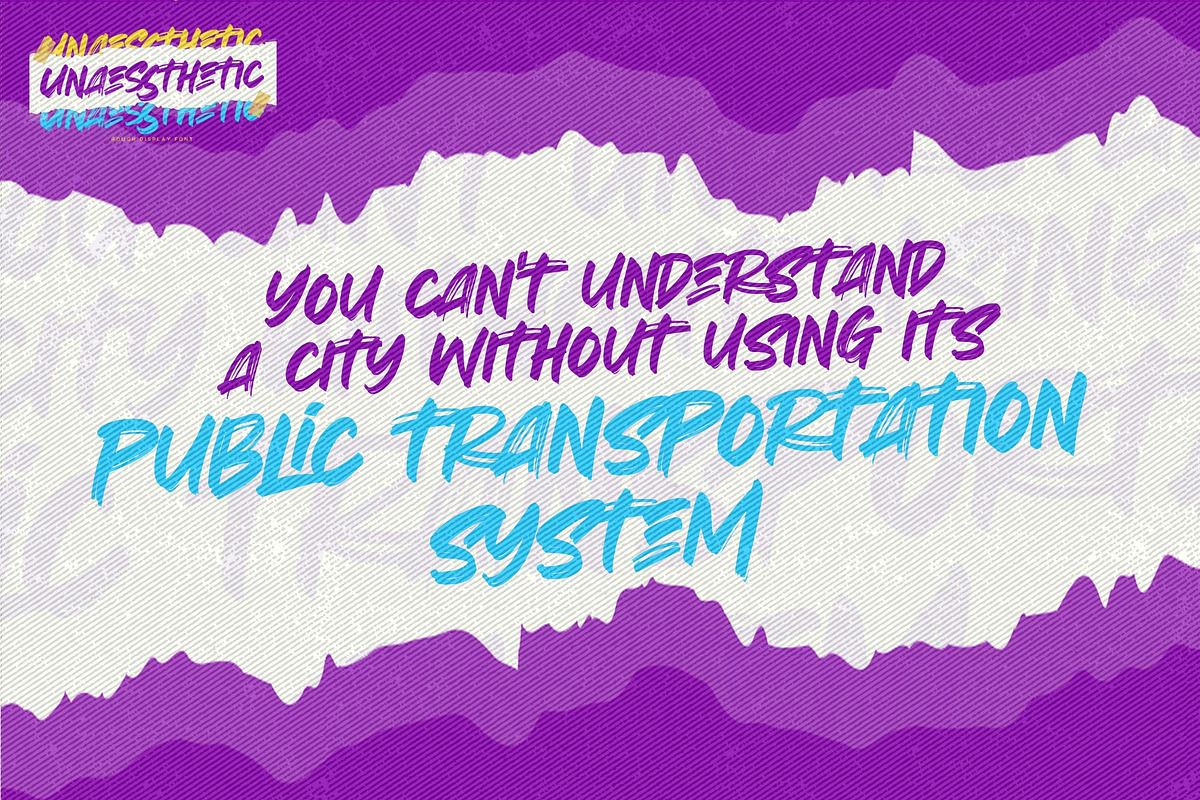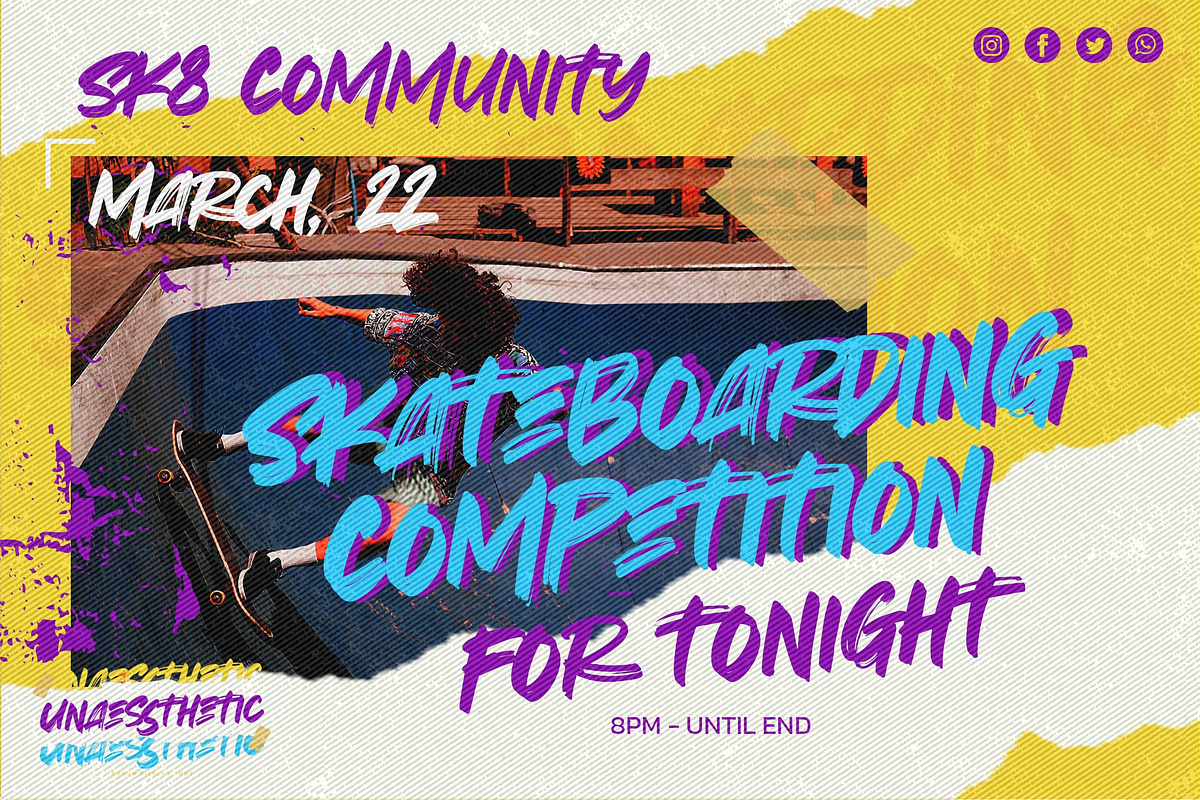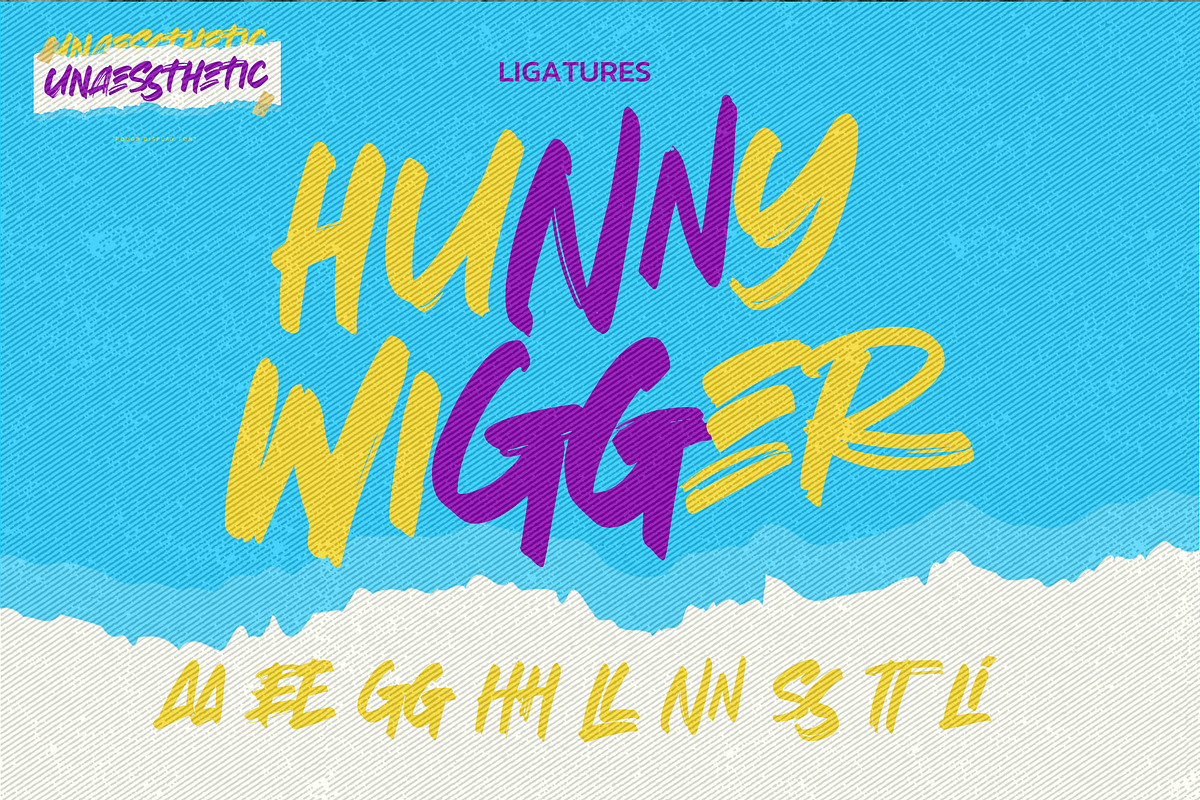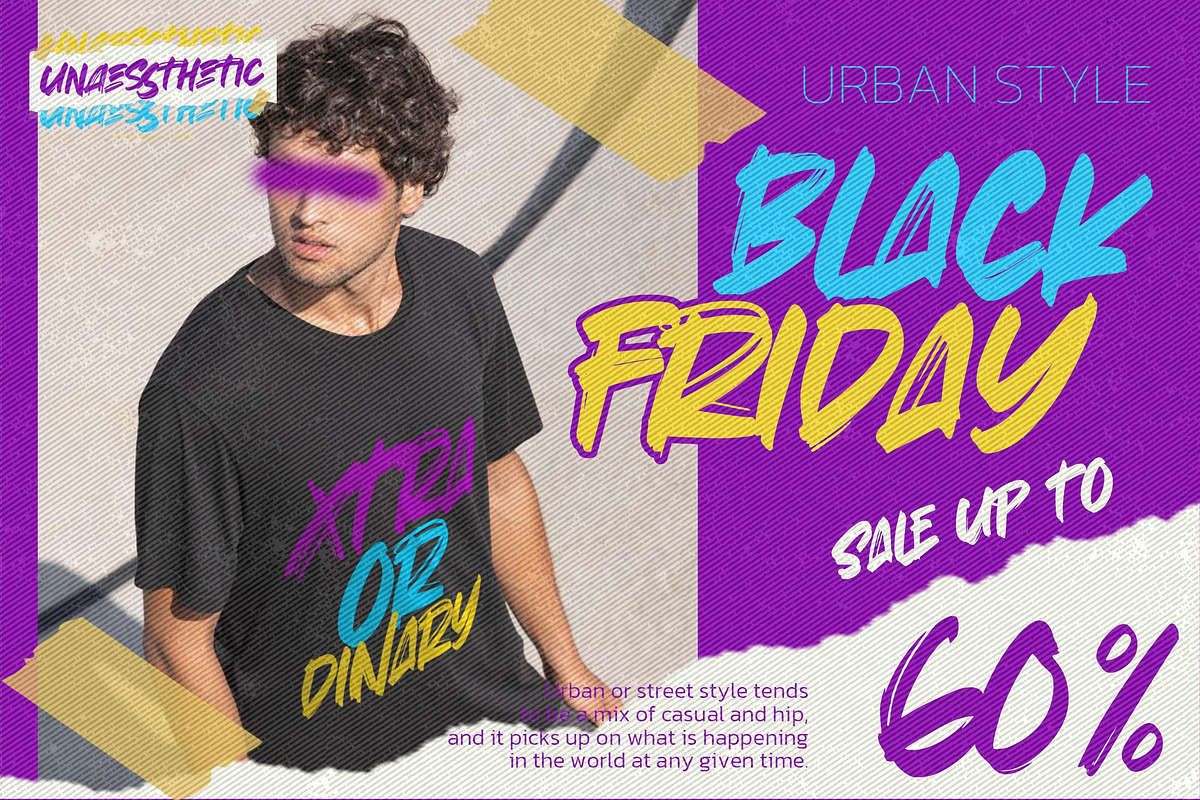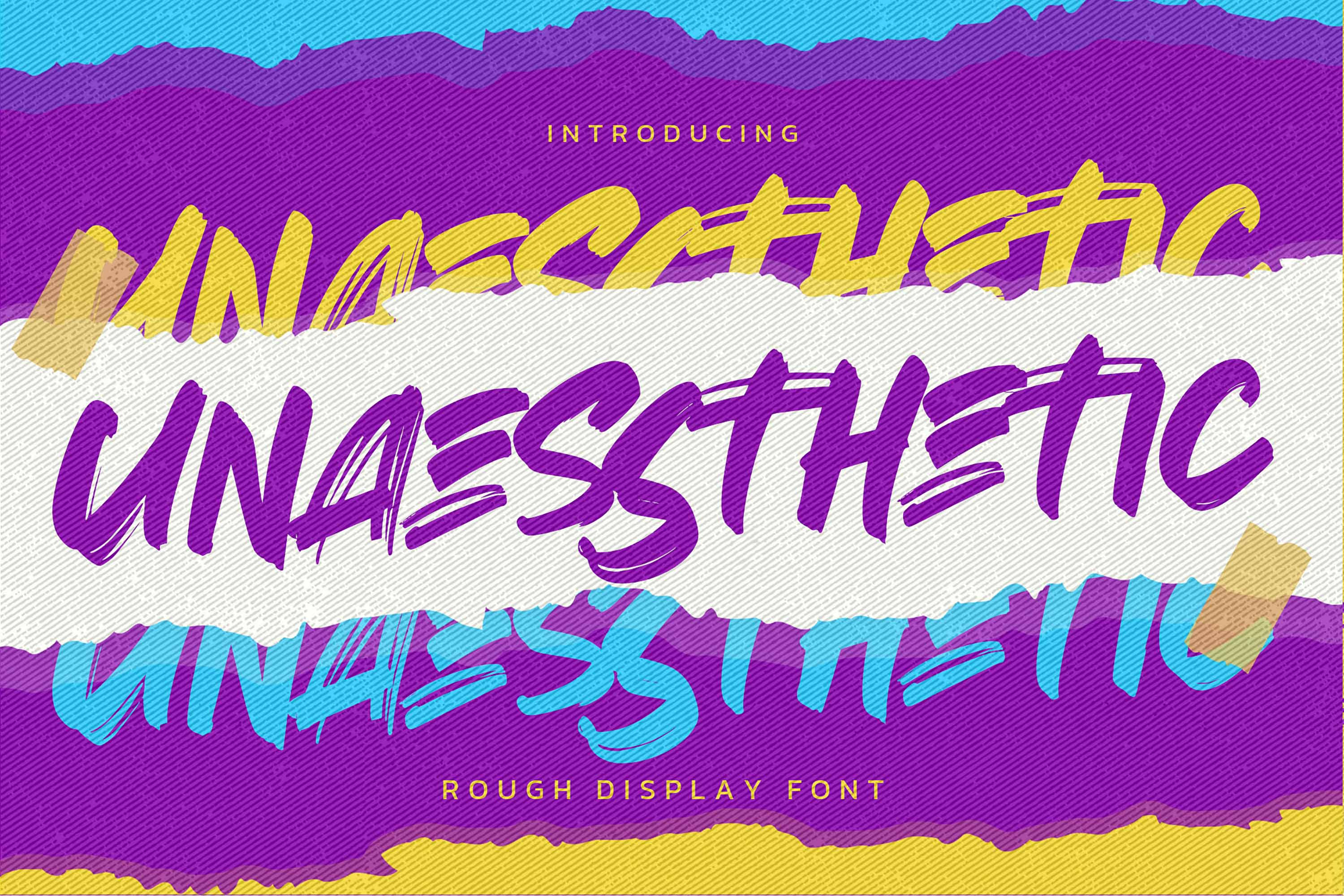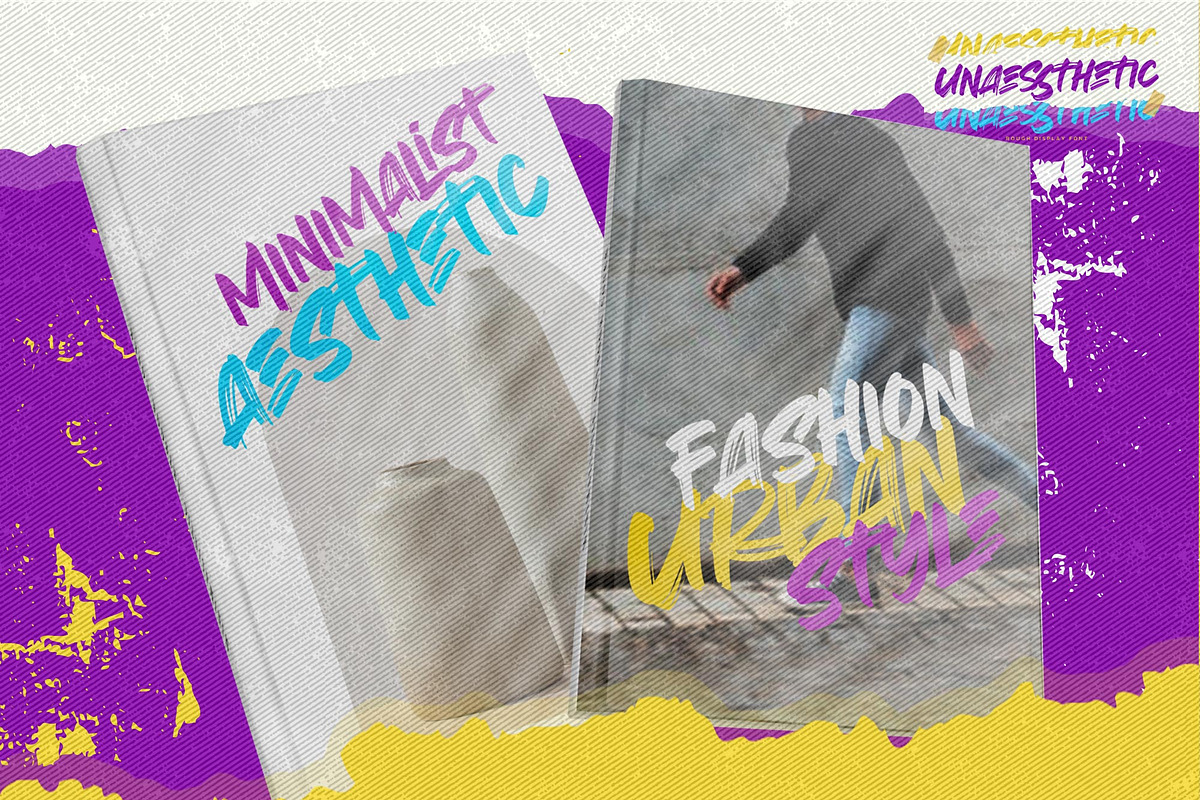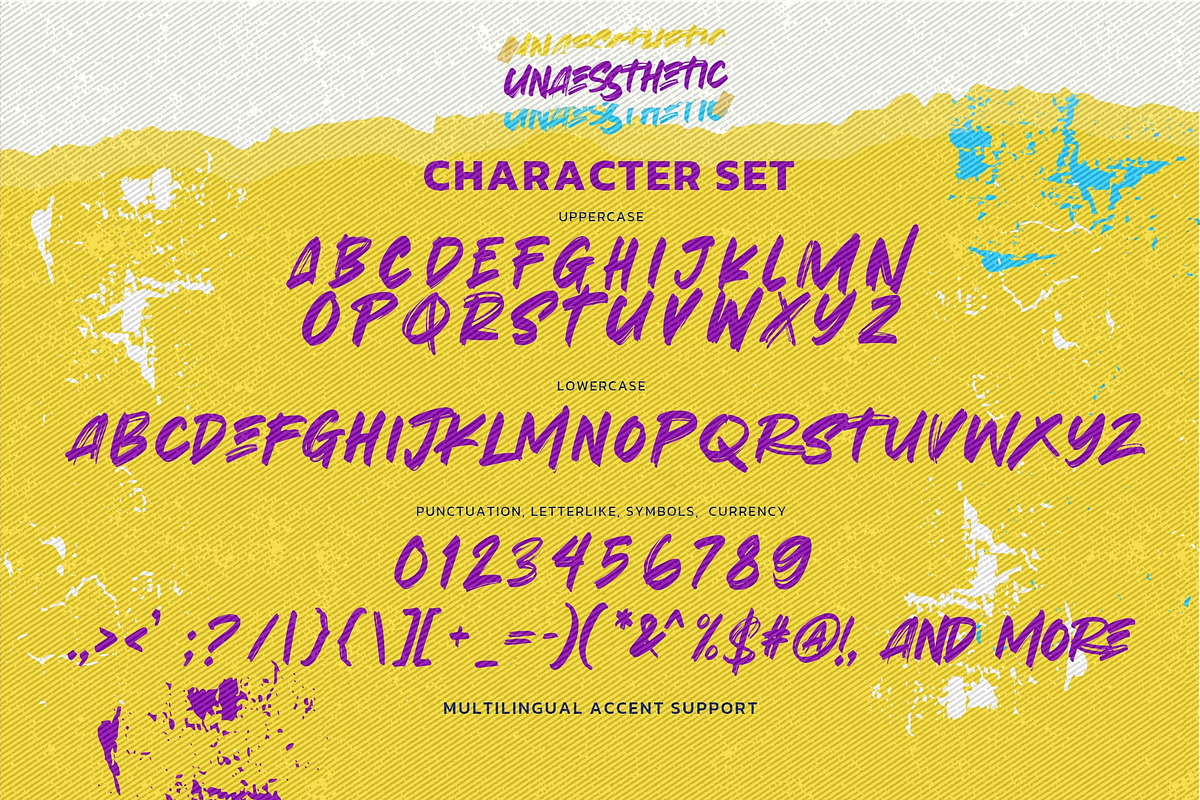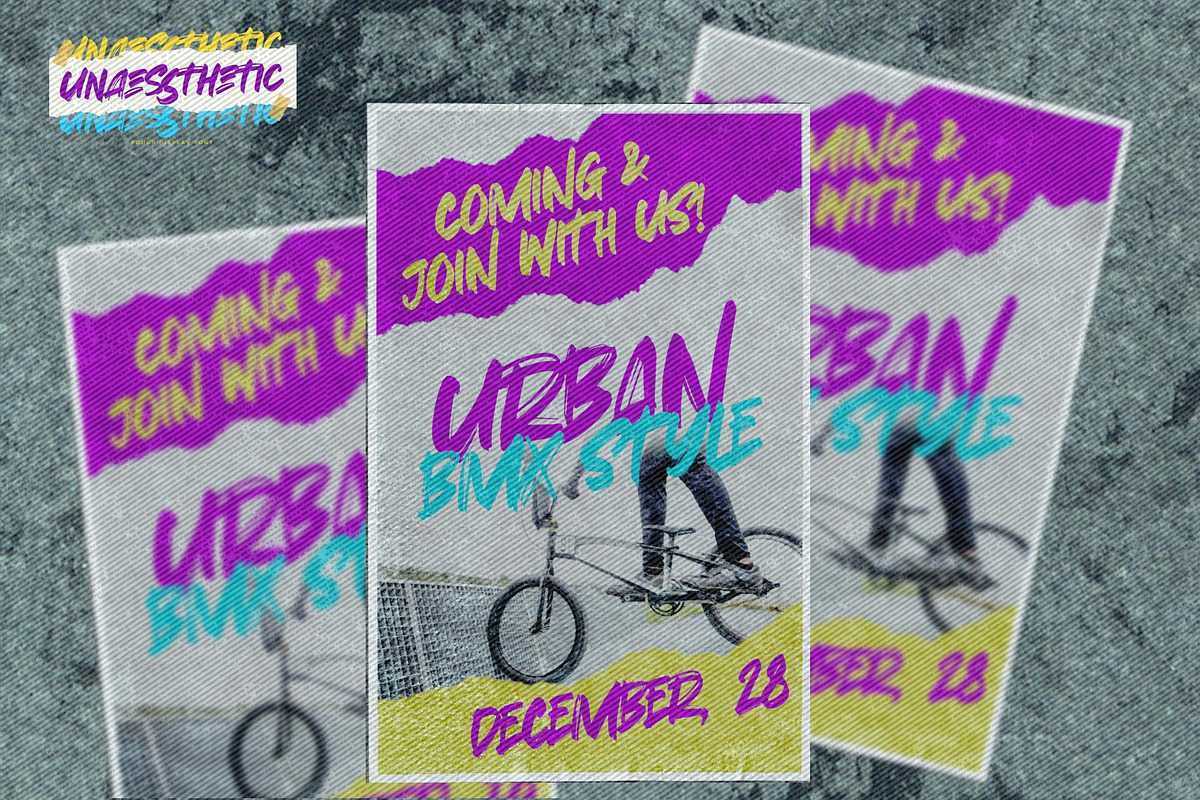
Unaessthetic - Rough Display Font
Hello Everyone, introduce our new product Font Unaessthetic is a Rough Display Font.This is a Textured Natural Style and classy style with a clear style and dramatic movement. This font Unaessthetic is great for your next creative project such as logos, printed quotes, invitations, cards, product packaging, headers, Logotype, Letterhead, Poster, Design this font is great for your creative projects such as watermark on photography, and perfect for logos & branding, invitation,advertisements,product designs, stationery, wedding designs,label ,product packaging, special events or anything that need handwritting taste.
That is has charming, authentic and relaxed characteristic more natural look to your text You can activate Ligatures OpenType panel.